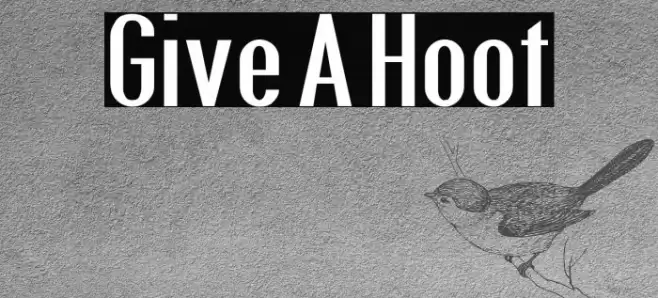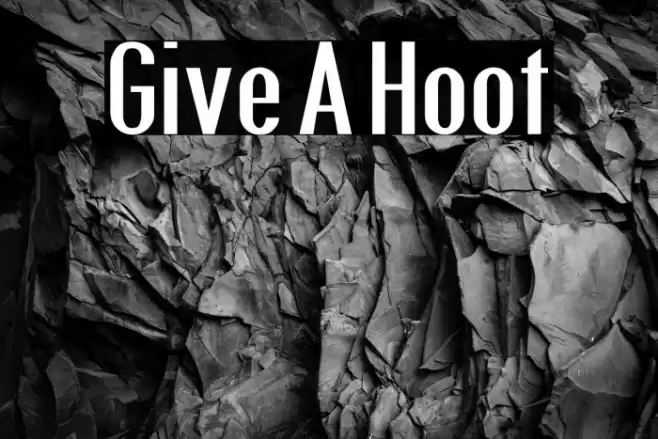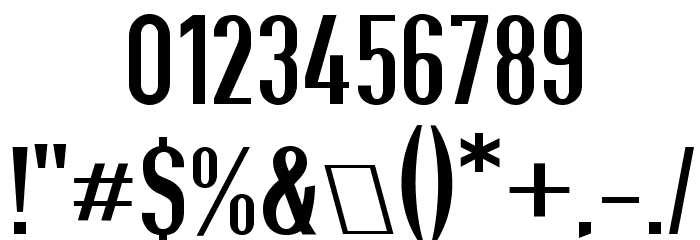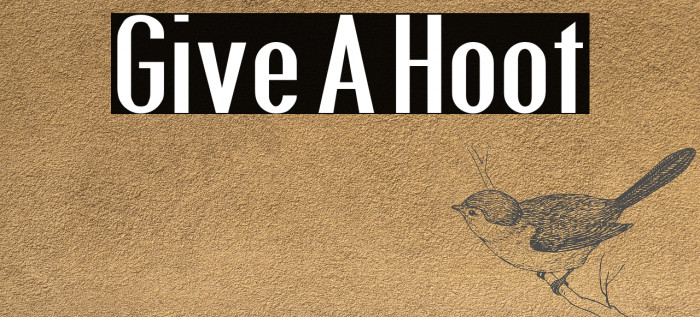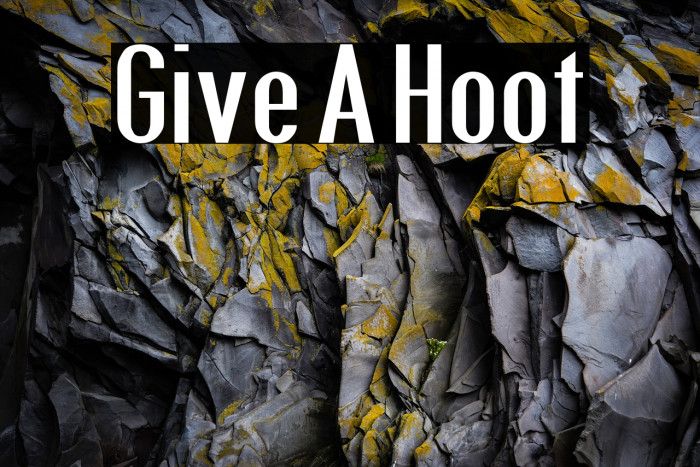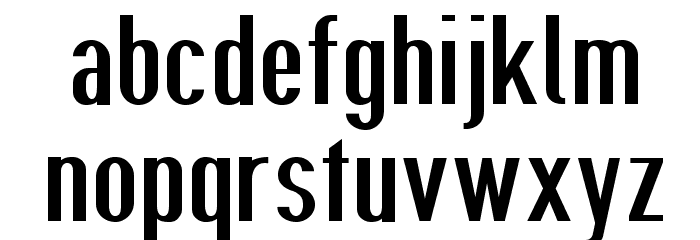
Give A Hoot Font
Give A Hoot Description
This font features a bold and modern design with clean, straight lines and a slightly condensed appearance. The uppercase letters are tall and commanding, while the lowercase letters maintain a consistent height, offering a harmonious balance. The numerals are clear and easy to read, matching the overall style of the alphabet. Special characters are included, providing versatility for various uses. The font's design is both functional and stylish, making it suitable for a wide range of applications. Its strong presence and legibility make it ideal for headlines and display purposes.
A bold, modern font with a slightly condensed style and clean lines from Uncategorized fonts.
- Proposed Projects: Ideal for branding, advertising, posters, and headlines where a strong, modern look is desired.